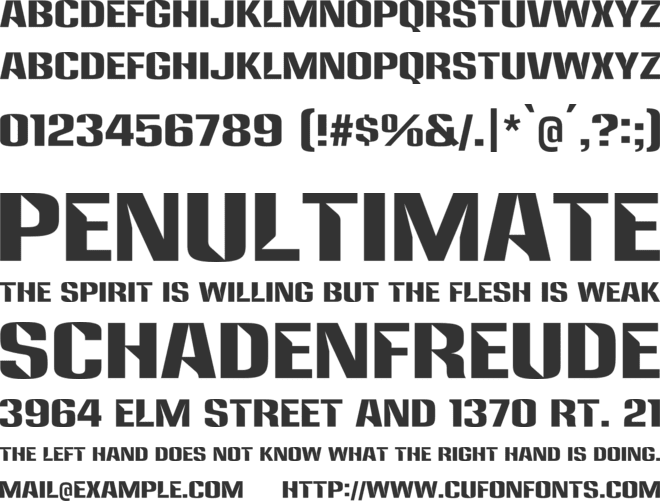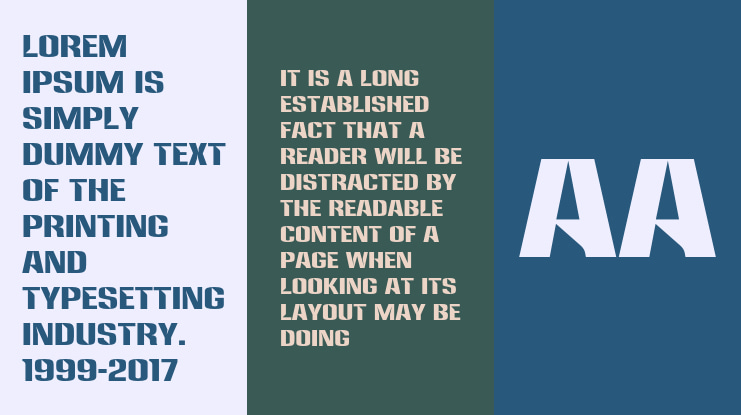
I released Anklepants on December 12, 1997, inspired by the display
typeface used by CBS radio stations owned by Westinghouse. In 1963,
Westinghouse Broadcasting rebranded as “Group W,” and part of that
identity was a distinctive set of call letters and logos that stayed in use
until 1995. I always felt the original font looked like a bit of a hack job
— more like a modified typeface than something purpose-built. My
version wasn’t perfect either, but at least it was drawn from scratch and
felt more like a proper typeface than a retrofit.
Anklepants wasn’t an exact replica. John Sizemore later made a more
faithful digital version of the Westinghouse font. Mine was about
creating a more practical design that carried the spirit of the original
without sticking too closely to it. I released it with a free commercial-use
license.
The name came from an anniversary party where a very drunk guest
wandered around with his trousers around his ankles. The moment
stuck in my mind, and I thought “Anklepants” was a fun, memorable
name that suited the oddball feel of the font. I don’t think the name
ever helped or hurt its adoption, but I still like it.
It wasn’t a big hit, and I don’t remember ever seeing it used in any
notable way. Later, I designed Libel Suit, which also drew from the
Westinghouse look, but the two aren’t related in any deliberate way. In
April 2024, I placed Anklepants in the public domain so it could circulate
freely.